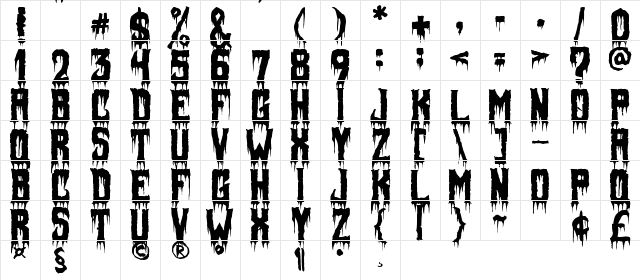
Fiendish Regular Free Font
Fiendish Regular
Designer: Chad Savage
Complete Fiendish Regular glyph index. Displaying only characters natively supported by Fiendish Regular font.
Design Context for Fiendish
Fiendish is a composed and adaptable typeface that performs quietly and consistently across a wide range of design contexts.